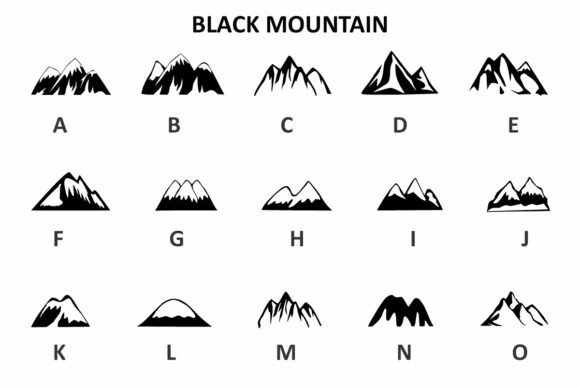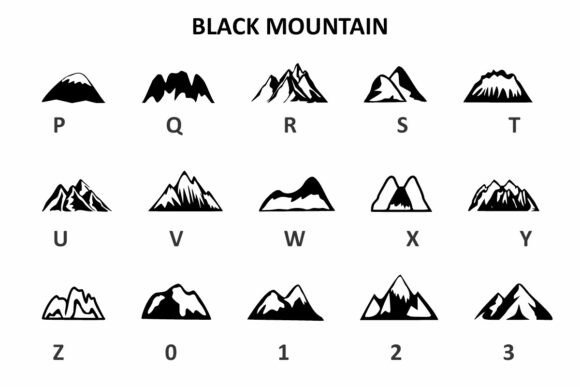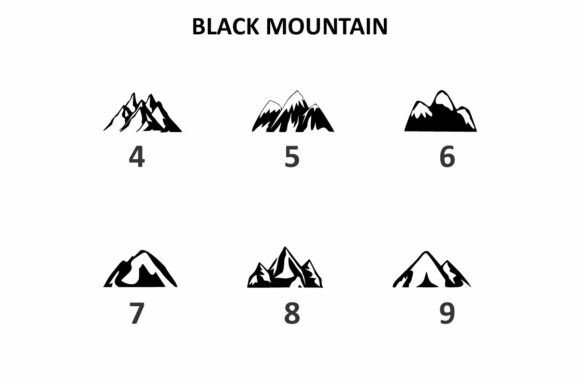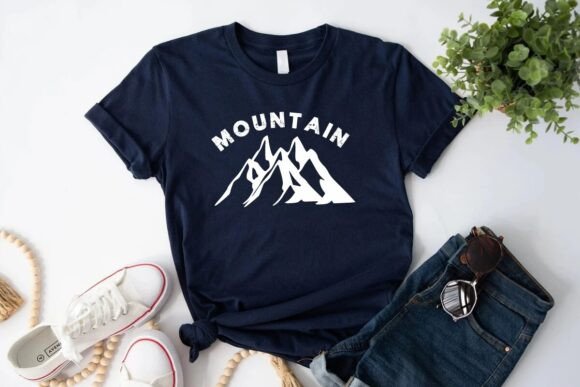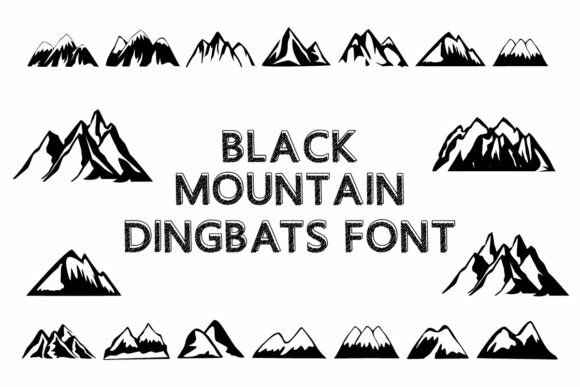
Discover the Versatility of Black Mountain Font: A Dingbats Delight
Are you a designer, crafter, or simply a creative individual looking for a unique font to elevate your projects? Look no further than the Black Mountain Font, a charming dingbats font that can add a touch of personality to a wide range of designs. In this article, we’ll explore the uses and benefits of Black Mountain Font, and how it can become a valuable addition to your creative toolkit.
What is Black Mountain Font?
Black Mountain Font is a dingbats font, which means it’s a type of font that features symbols, icons, and illustrations rather than traditional letters and numbers. This font is perfect for adding visual interest and personality to your designs, making it ideal for a variety of creative projects.
Uses for Black Mountain Font
So, what can you use Black Mountain Font for? The possibilities are endless! Here are some ideas to get you started:
- Note-taking and journaling: Add a personal touch to your notes and diary entries with the charming symbols and illustrations of Black Mountain Font.
- Greeting cards and invitations: Create unique and eye-catching cards for special occasions, such as birthdays, weddings, and holidays.
- Logo design: Use Black Mountain Font to create a custom logo for your business or brand, adding a touch of personality and whimsy.
- Craft projects: Add a decorative touch to your craft projects, such as scrapbooking, paper crafting, and card making.
- Cover book and magazine design: Use Black Mountain Font to create eye-catching titles and headings for your book or magazine covers.
- Banners and signs: Create attention-grabbing banners and signs for events, sales, and promotions.
- Social media posts: Add a touch of personality to your social media posts and stories with the unique symbols and illustrations of Black Mountain Font.
- T-shirts and apparel: Use Black Mountain Font to create custom designs for t-shirts, hoodies, and other apparel.
- Stationery and paper goods: Add a decorative touch to your stationery, notebooks, and paper goods with Black Mountain Font.
Benefits of Using Black Mountain Font
So, why choose Black Mountain Font for your creative projects? Here are just a few benefits:
- Unique and eye-catching: Black Mountain Font offers a unique and eye-catching way to add visual interest to your designs.
- Versatile: With its wide range of symbols and illustrations, Black Mountain Font can be used for a variety of creative projects.
- Customizable: Use Black Mountain Font to create custom designs that reflect your personal style and brand.
- Experiment with different sizes and colors: Play around with different sizes and colors to find the perfect combination for your design.
- Mix and match symbols: Combine different symbols and illustrations to create unique and interesting designs.
- Use it sparingly: Use Black Mountain Font sparingly to add a touch of personality to your designs, rather than overwhelming them.
Black Mountain Font is a versatile and charming dingbats font that can add a touch of personality to a wide range of creative projects. With its unique symbols and illustrations, it’s perfect for designers, crafters, and anyone looking to add a little extra something to their designs. Whether you’re creating greeting cards, logos, or social media posts, Black Mountain Font is a great choice. So why not give it a try and see what creative possibilities it offers?